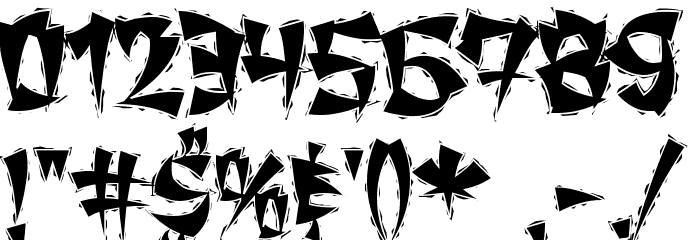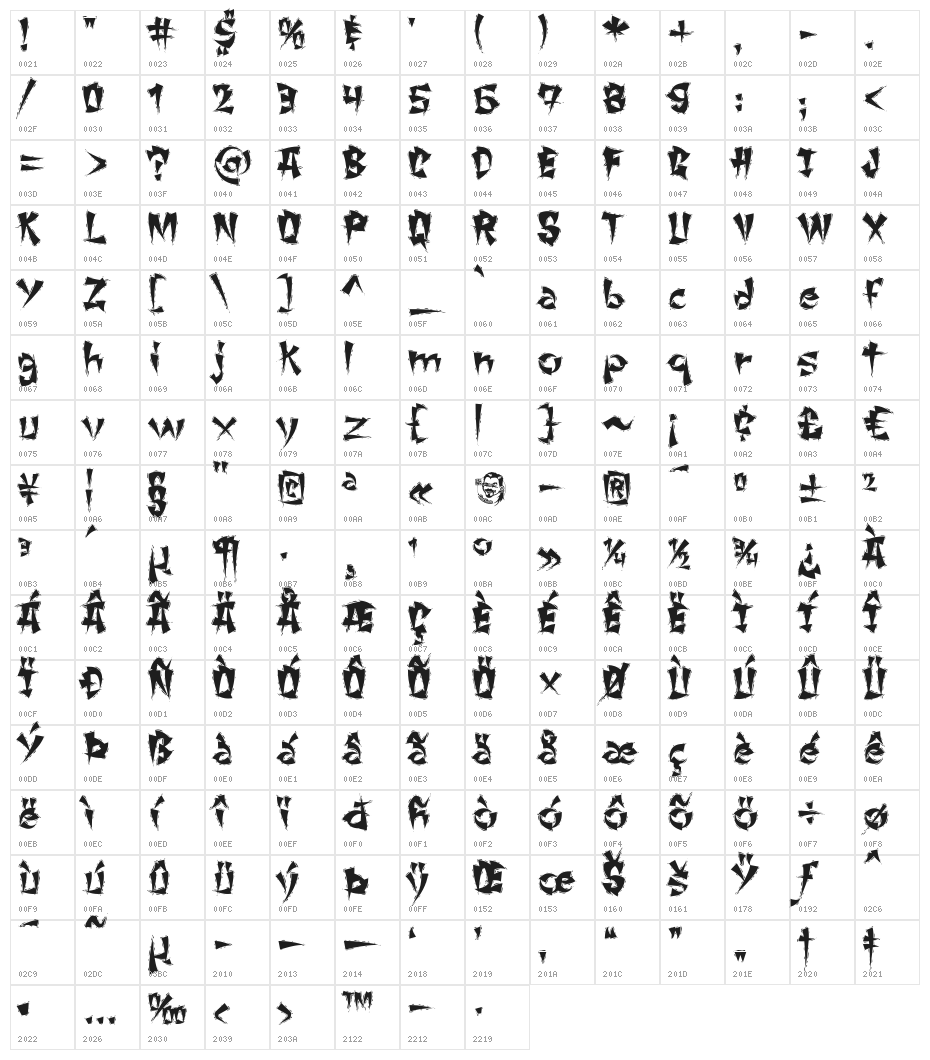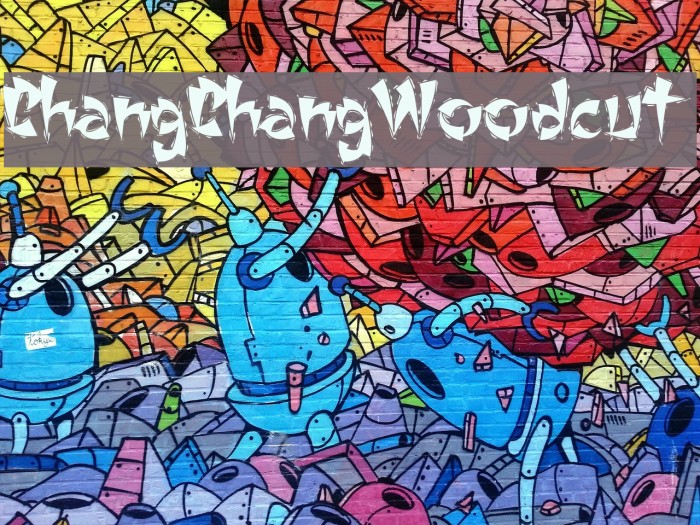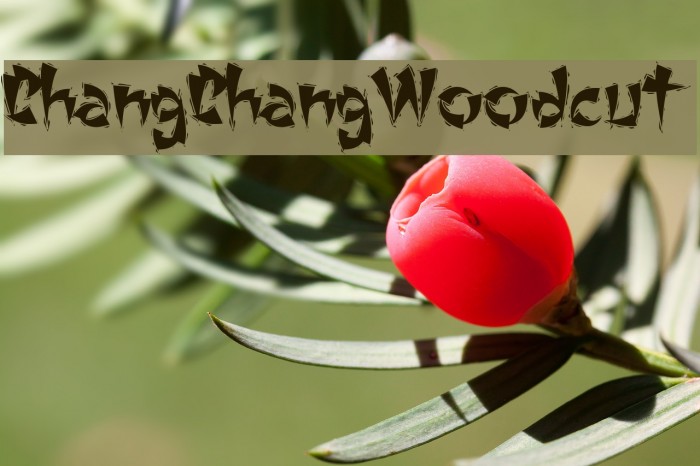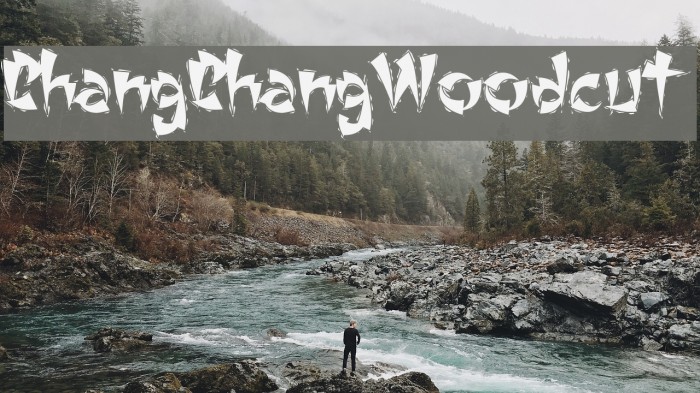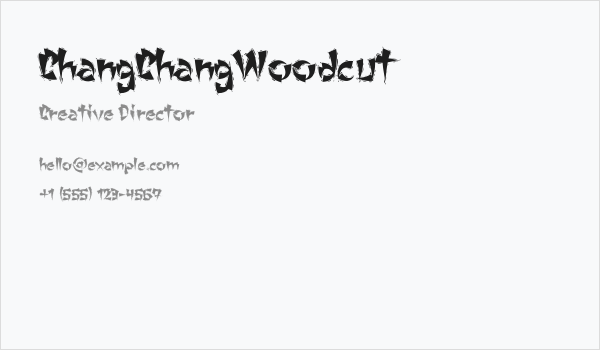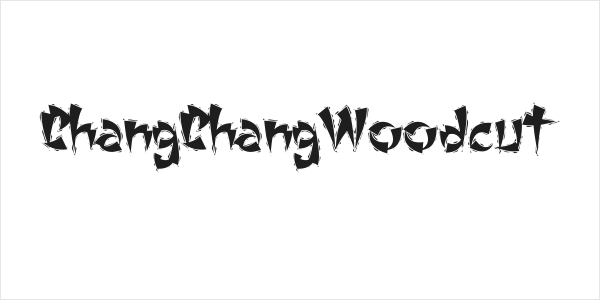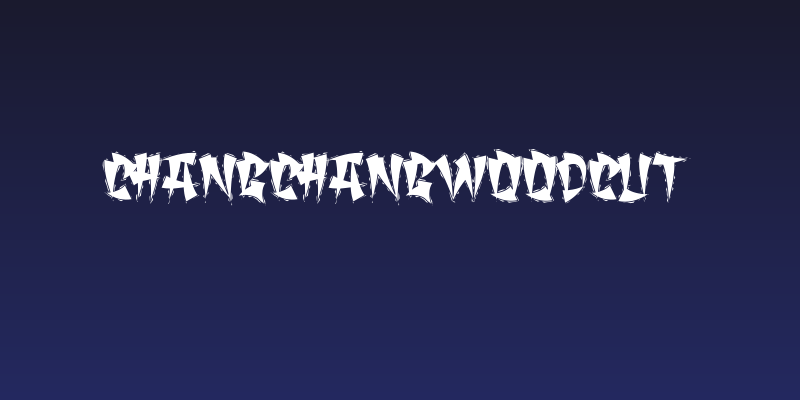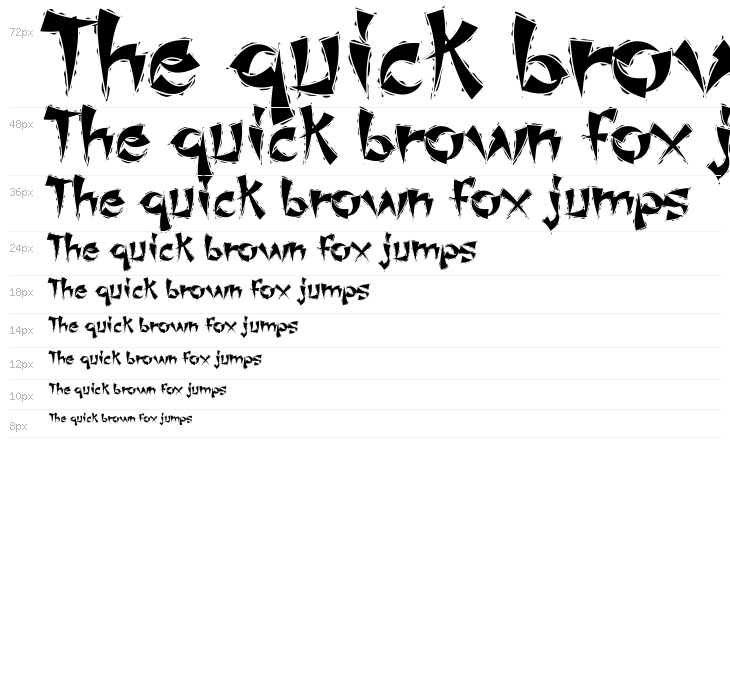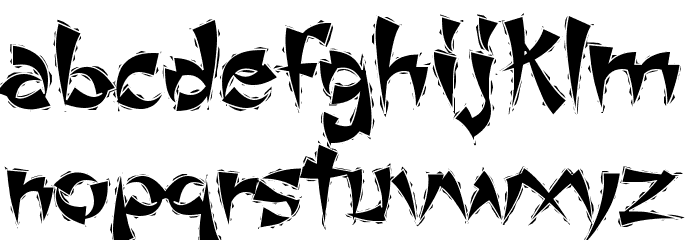
ChangChangWoodcut Font
ChangChangWoodcut Description
This font features a bold and dynamic style, reminiscent of woodcut art with its sharp, jagged edges and irregular forms. The characters are highly stylized, giving off an intense, energetic vibe. The uppercase and lowercase letters maintain a consistent aesthetic, with exaggerated angles and a rough, hand-carved appearance. The numbers and special characters follow the same design principles, ensuring a cohesive look across all glyphs. This font's unique and striking design makes it stand out, ideal for projects that require a bold statement.
| Proposed Projects | Ideal for posters, album covers, branding for edgy or alternative products, and any design needing a bold, artistic touch. |